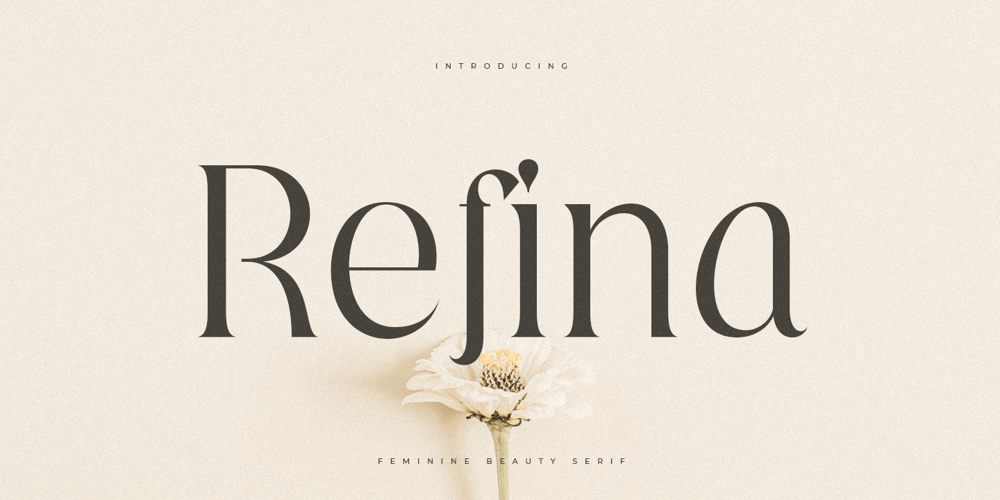
Refina Font Family was designed by Zamroni Hamzah and published by Sensatype Studio. Refina contains 1 styles and family package options. An Refina Feminine Beauty Serif font that we created special for elegant branding needs, with extra alternates in unique shape will be ready to add value of your brand. It so nice to leverage designer or product owner that need solutions to make their design look more classy and modern. And specially for Refina font, We prepared any alternate characters to help you create unlimited variations for your creative needs.Refina Feminine Beauty Serif ready with: Any options to get creative variations (combination of Alternate characters) Preview as a inspirations that you can do with Refina font Ready with Lowercase and Uppercase characters Wish you enjoy our font. ๐